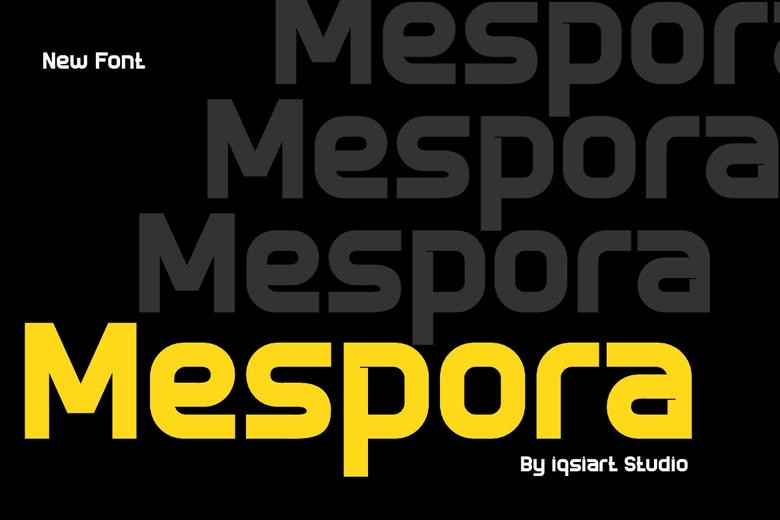
Mespora Font
Mespora is a bold and assertive sans serif font. No matter the topic, this font will be an incredible asset to your fonts’ library, as it has the potential to elevate any creation. The free version provides all uppercase and lowercase letters and a few special characters too.
Mespora Sans Serif Font